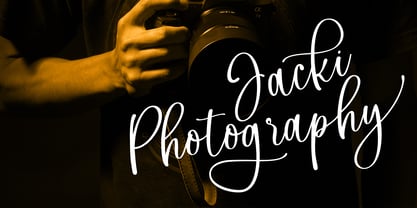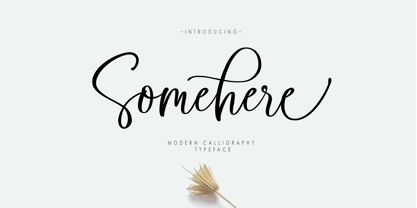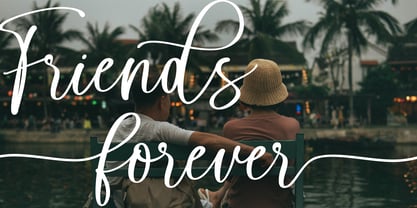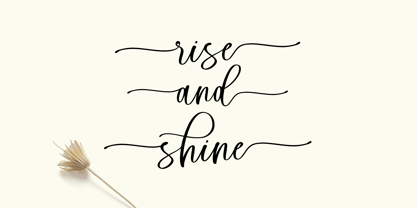
MT Somehere
por moriztype
La familia tipográfica MT Somehere fue diseñada por Muriza Moriztype y publicada por moriztype. MT Somehere contiene 1 estilos.
Somehere Script is a dazzling script font. This font is neatly crafted and highly detailed. Whatever the topic, this font will be a wonderful asset to your font library, as it has the potential to enhance any creation.
If your latest project needs a bit of an elegant touch, it's time to introduce Somehere Script to your font library. This stylish typeface features OpenType features such as ligatures, stylistic alternatives, style sets, swashes, discretionary ligatures.